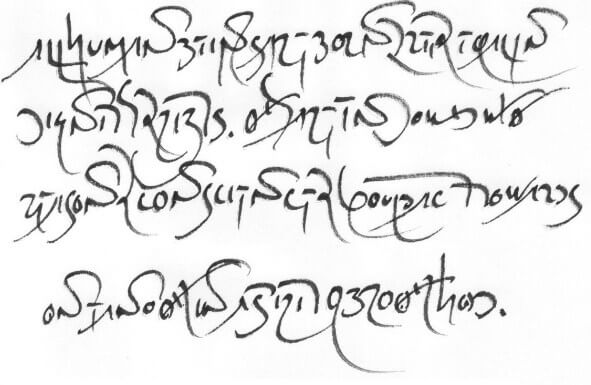
Pauls Circus Font contains a unique and different layout which is best for your projects. These font styles attract the users at your projects.
This script font designed by way of Agga Swistblnk has uneven edges, giving it a texture reminiscent of Atlantica calligraphy. superb for all forms of visually creative projects.
Pauls Circus Font